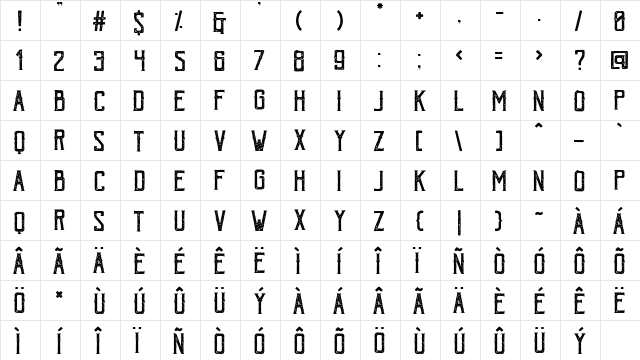
Bohem Vintage Regular
Design Context for Bohem Vintage Typeface
Bohem Vintage has the warm character of retro typography — evoking diners, record sleeves, and the golden age of print advertising.
Font Pairing: Combine Bohem Vintage with a simple slab or neutral sans — period-accurate companions reinforce the vintage feel without competing for attention.
Pro Tip: Use Bohem Vintage for headlines and pull quotes rather than body copy — its personality is best appreciated in short, focused bursts.